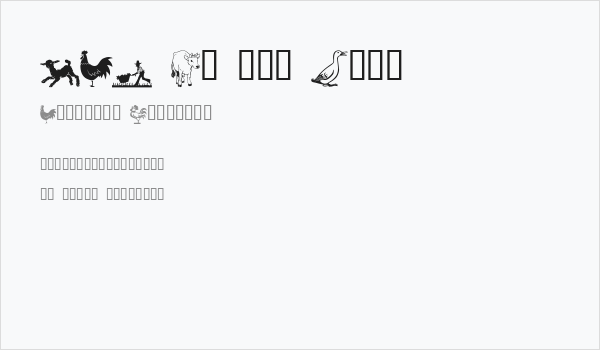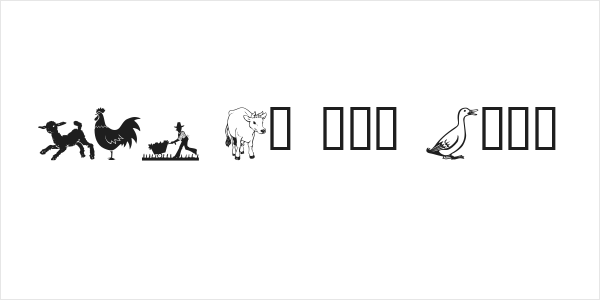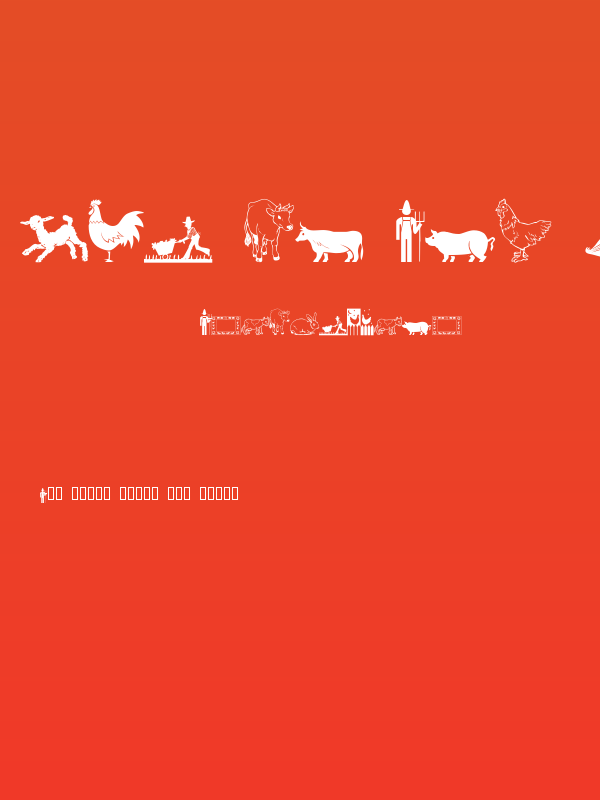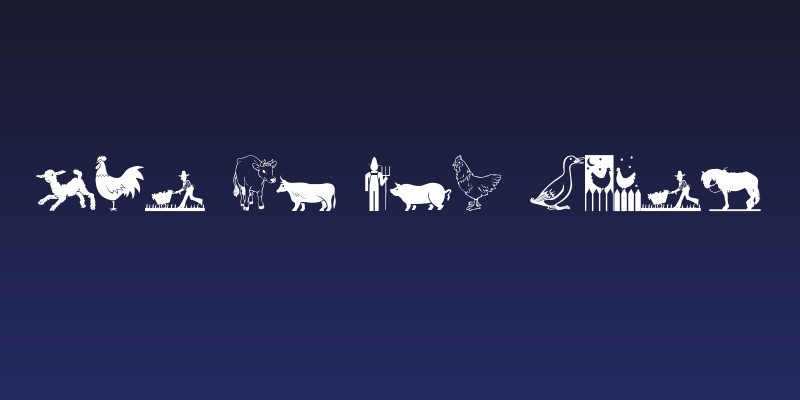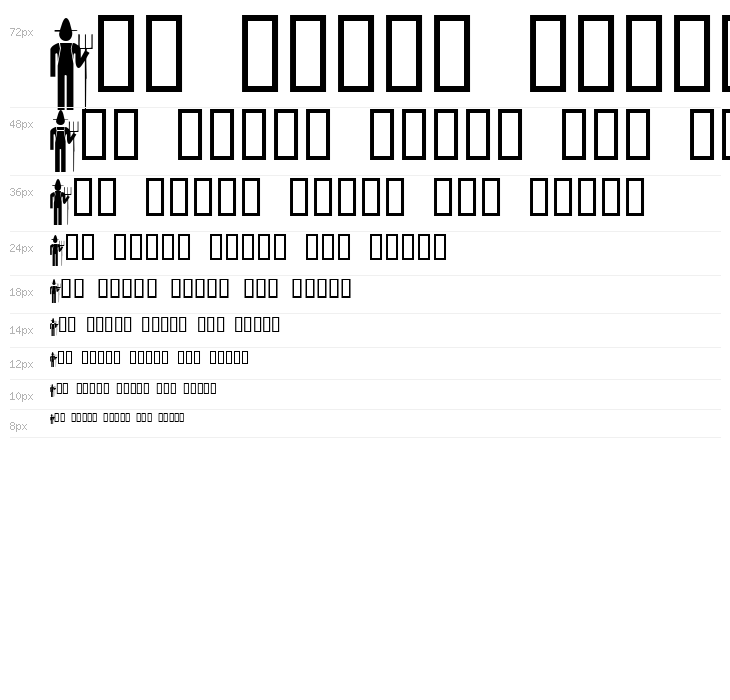
LCR On the Farm Font
LCR On the Farm Description
This is not a traditional font but rather a collection of farm-themed icons and silhouettes. The characters are represented by various farm animals, equipment, and scenes, such as chickens, cows, tractors, and barns. Each icon is detailed and distinct, capturing the essence of rural life. The style is playful and illustrative, making it suitable for creative projects that require a rustic or agricultural theme.
Use CaseLogos, Illustrations, Themed Decor
Proposed ProjectsIdeal for educational materials, children's books, farm-themed event invitations, or any project requiring a playful, rural aesthetic.